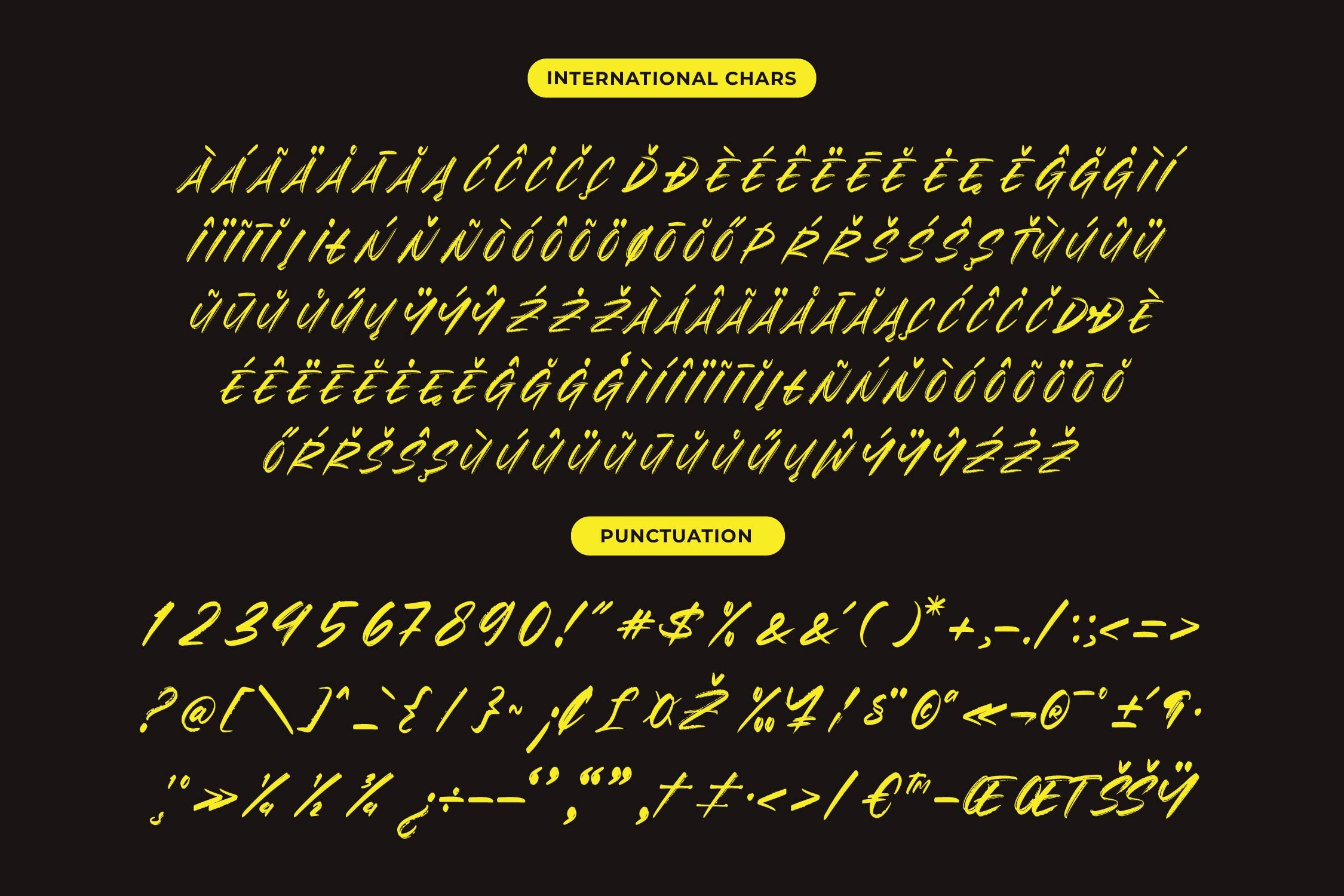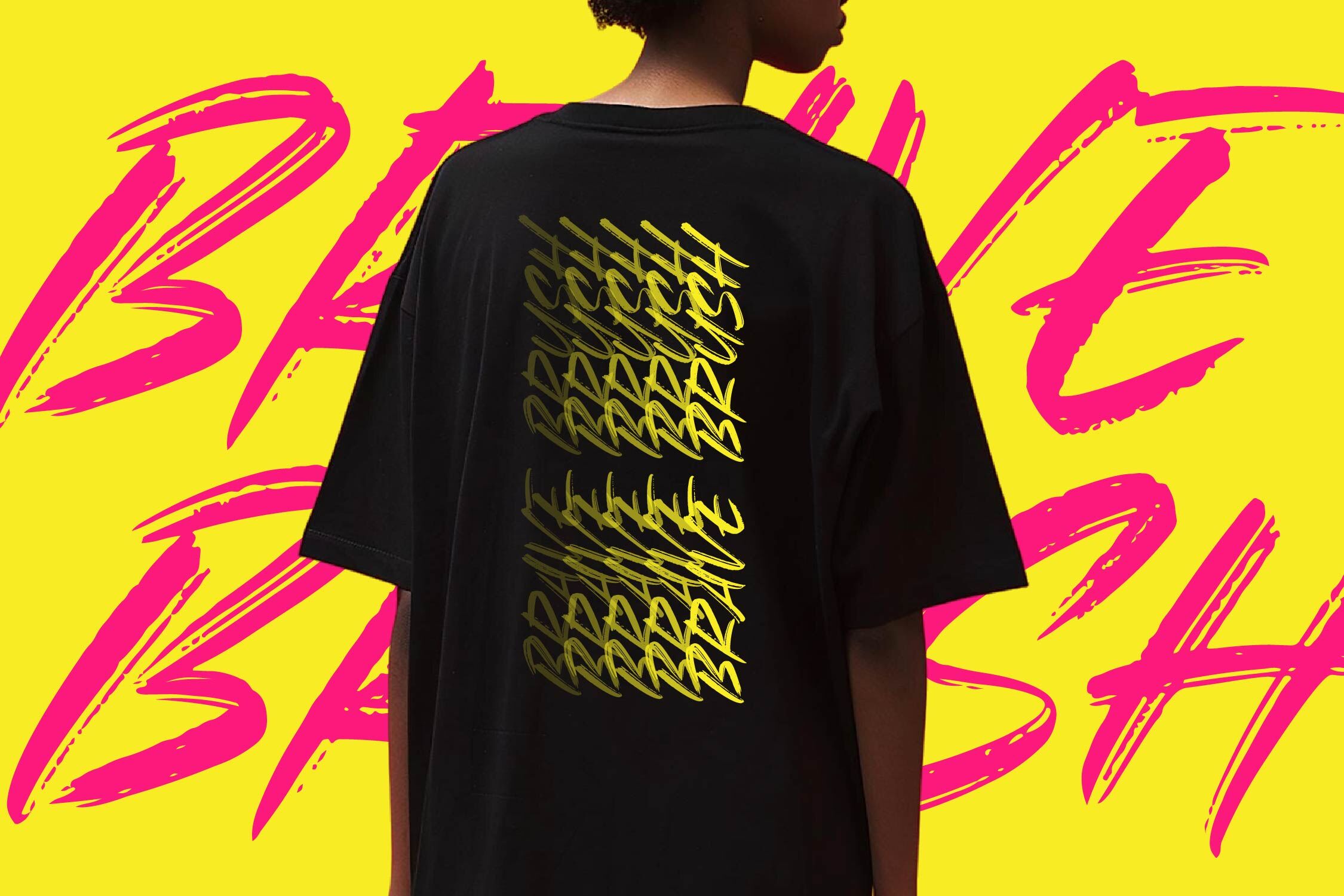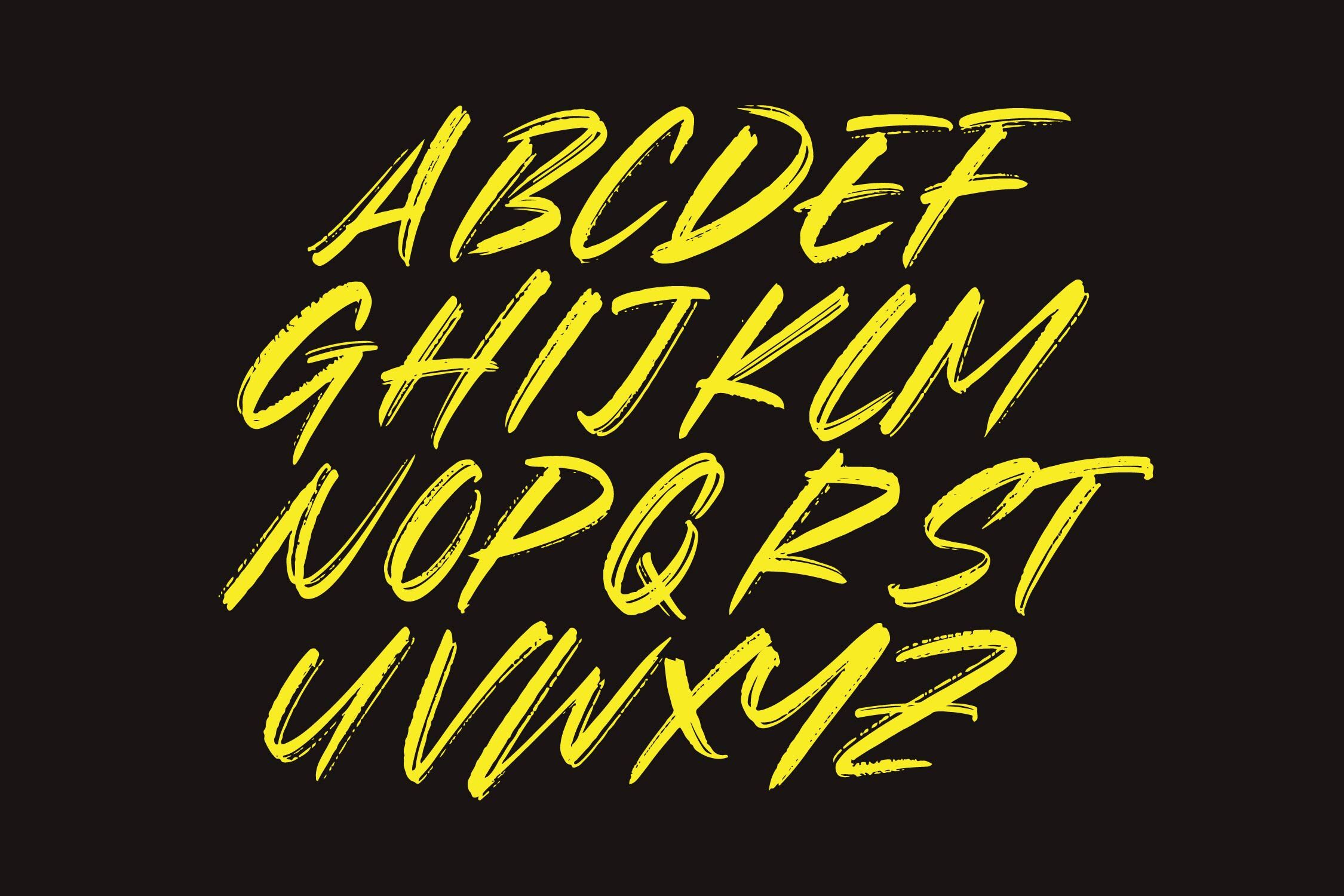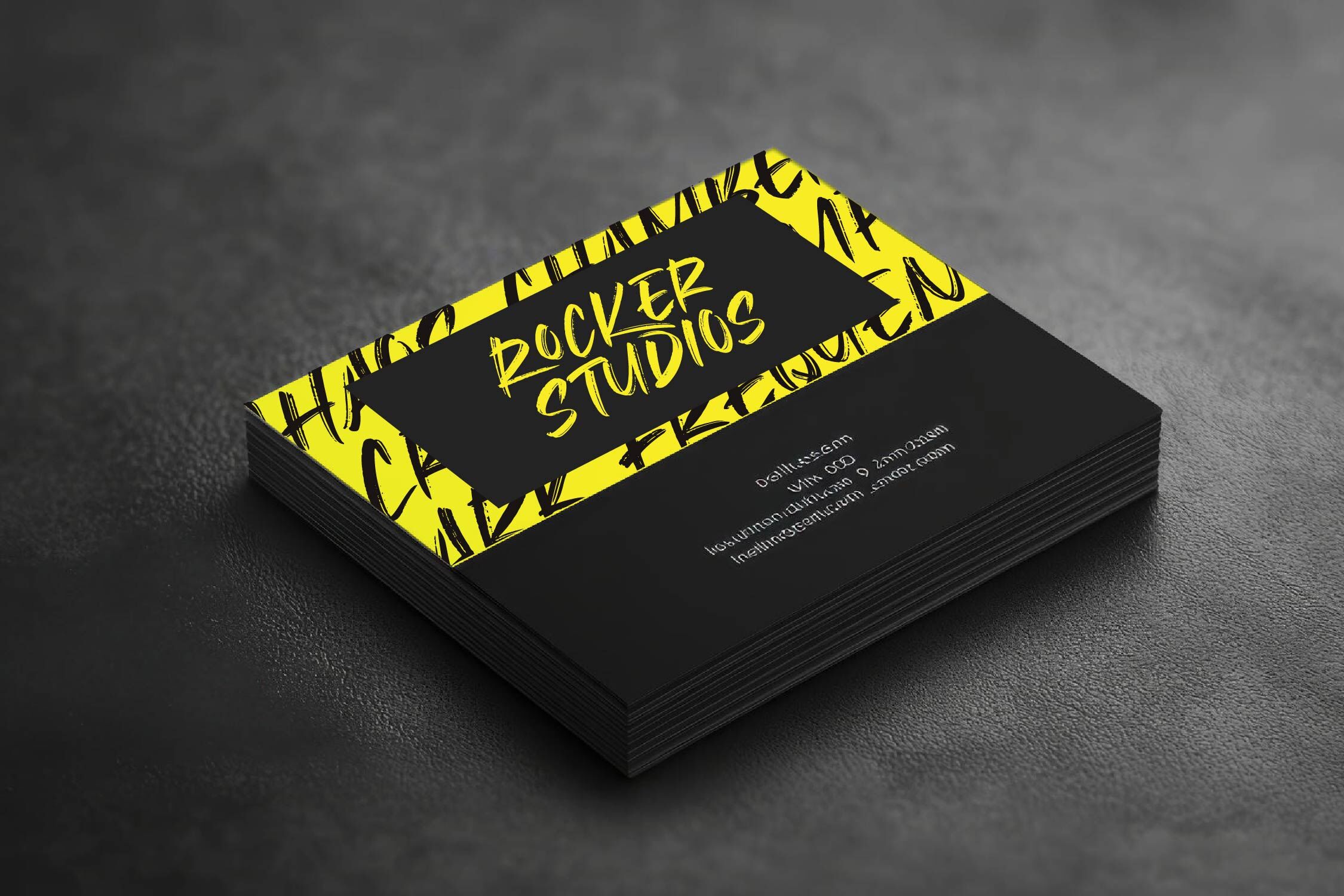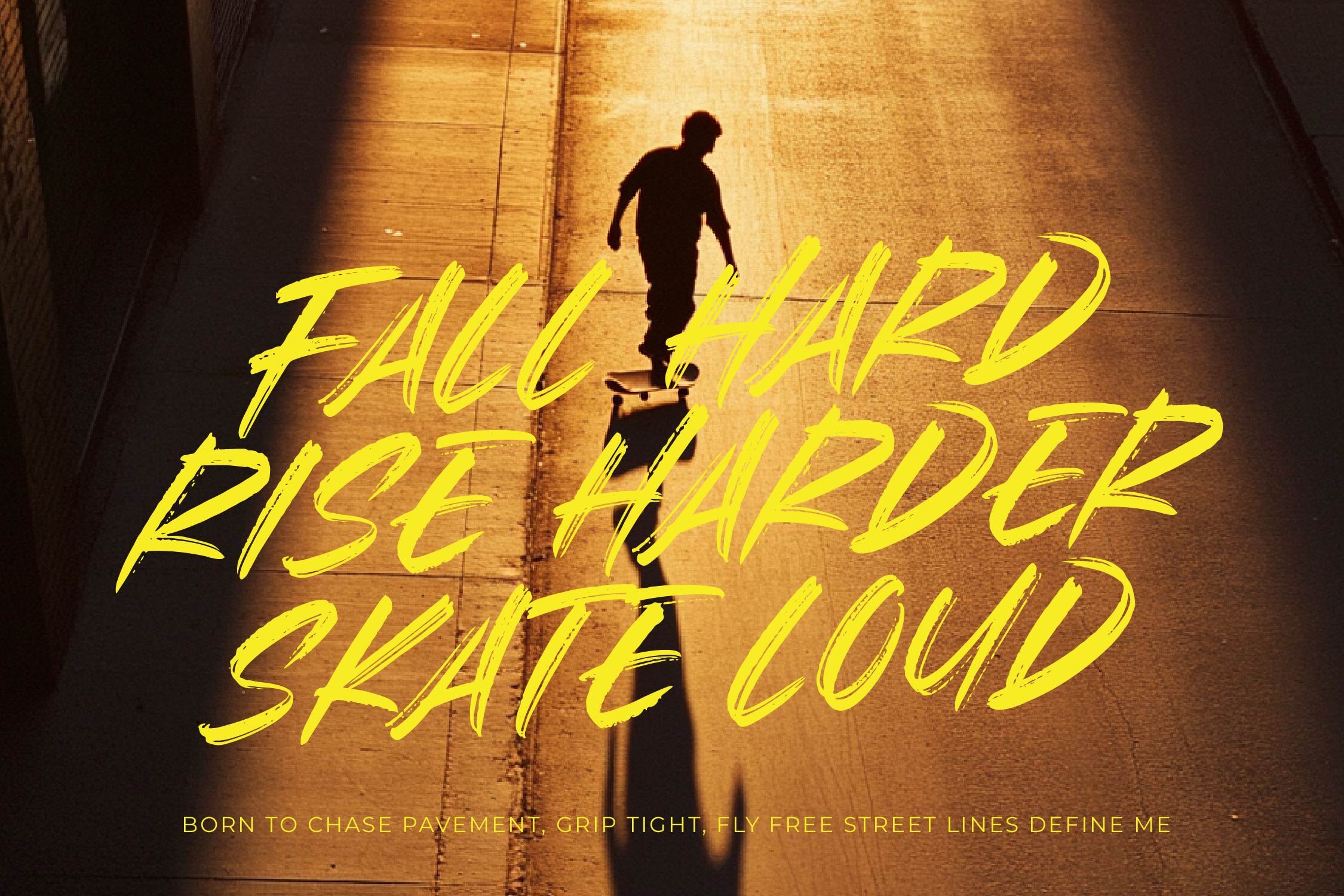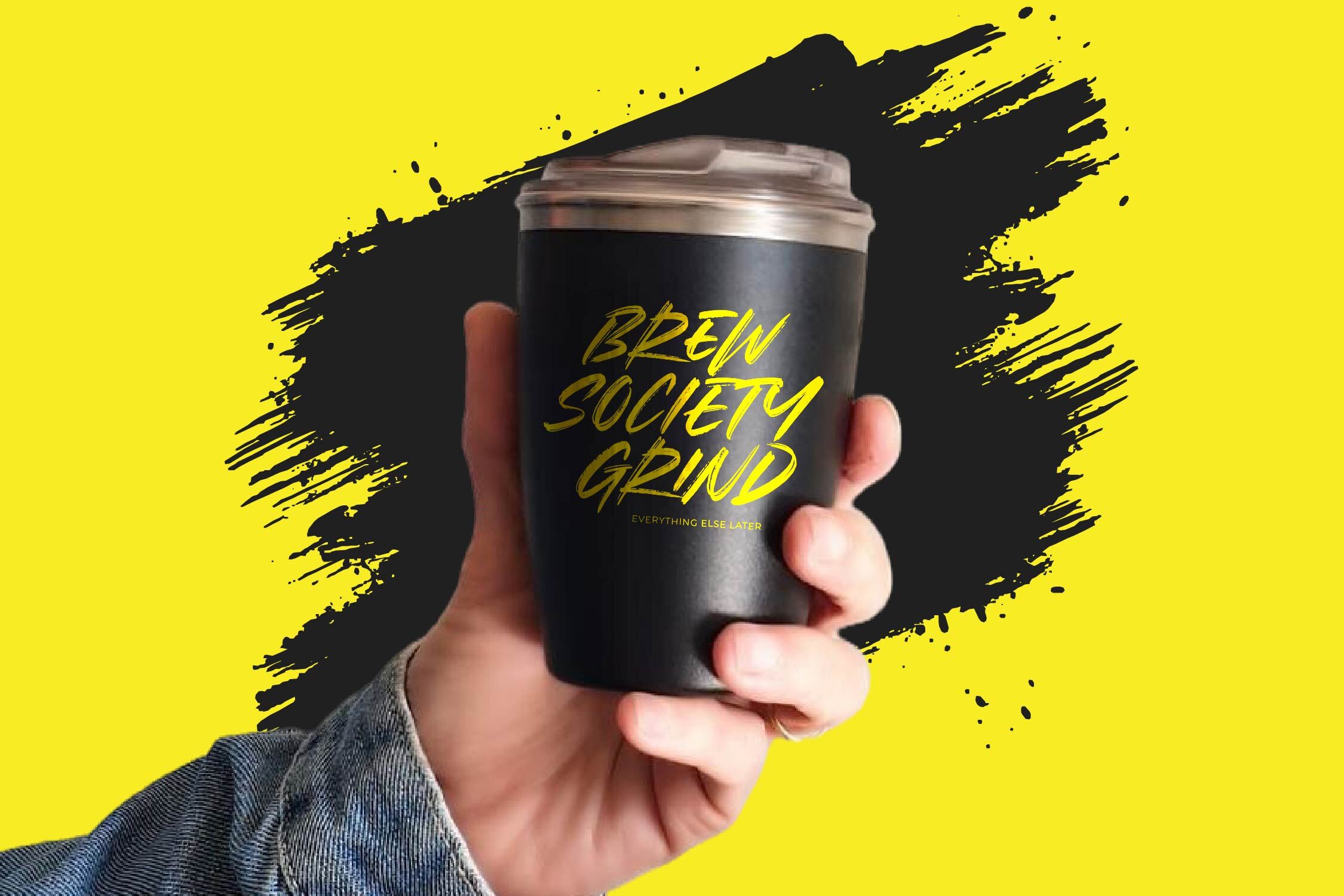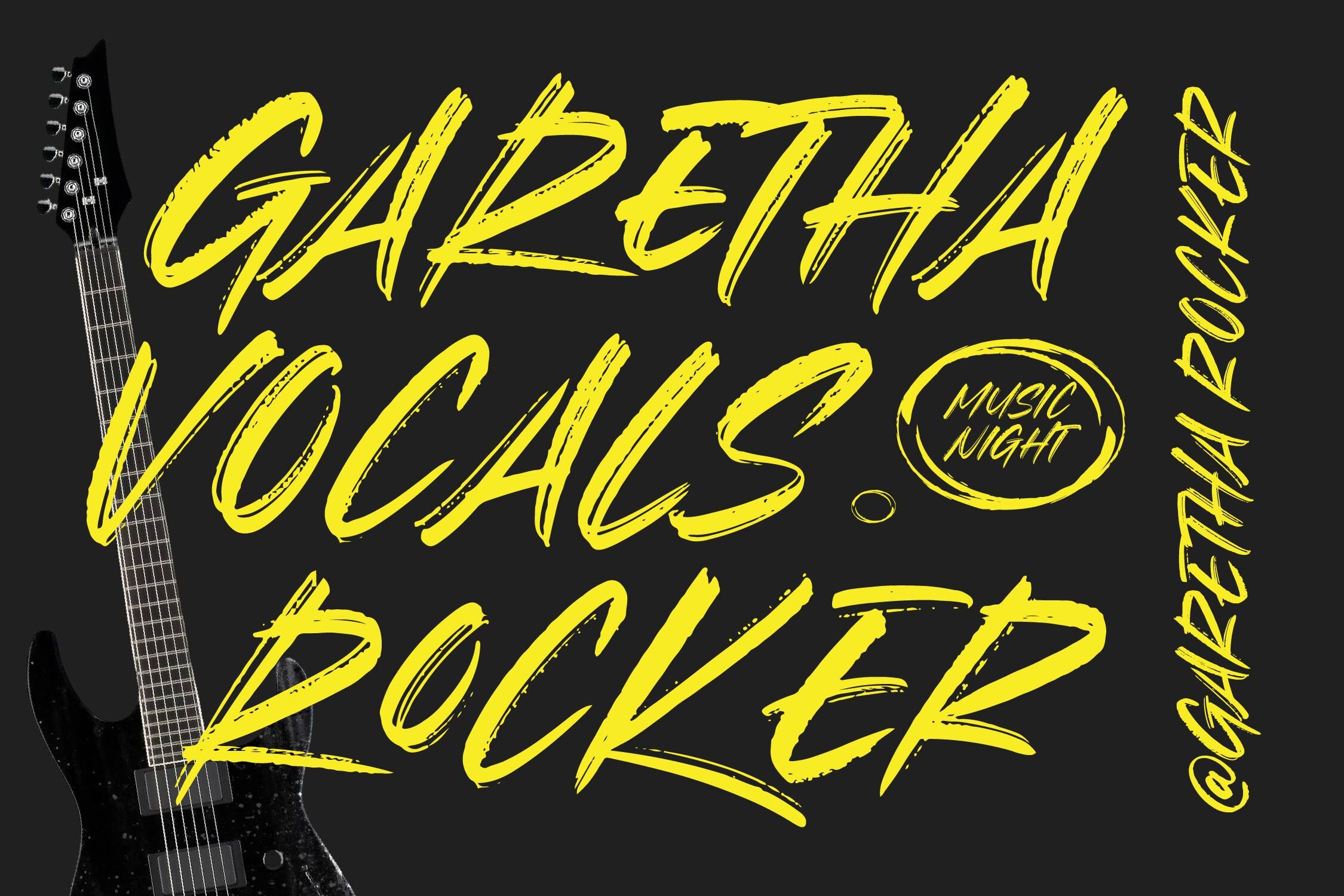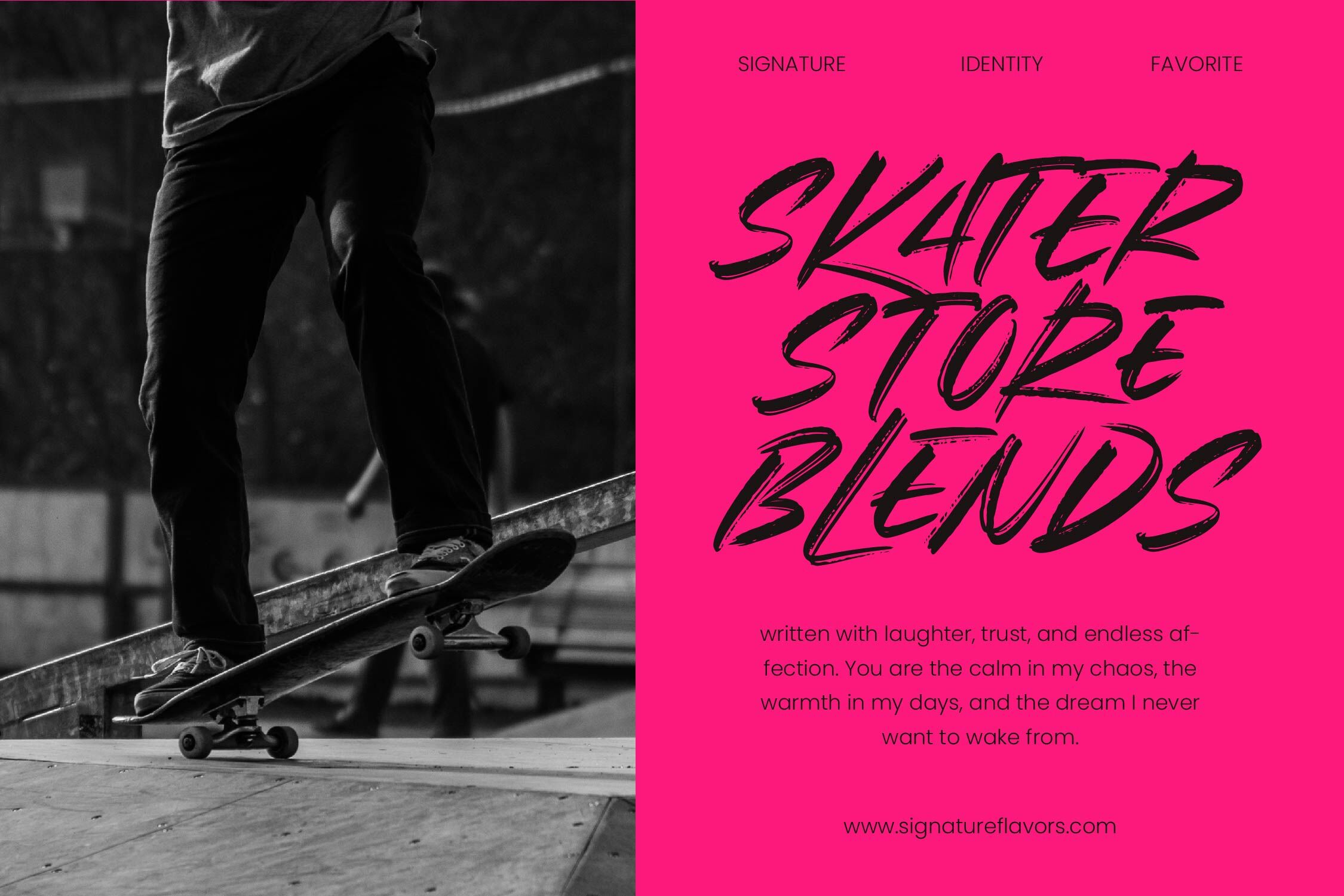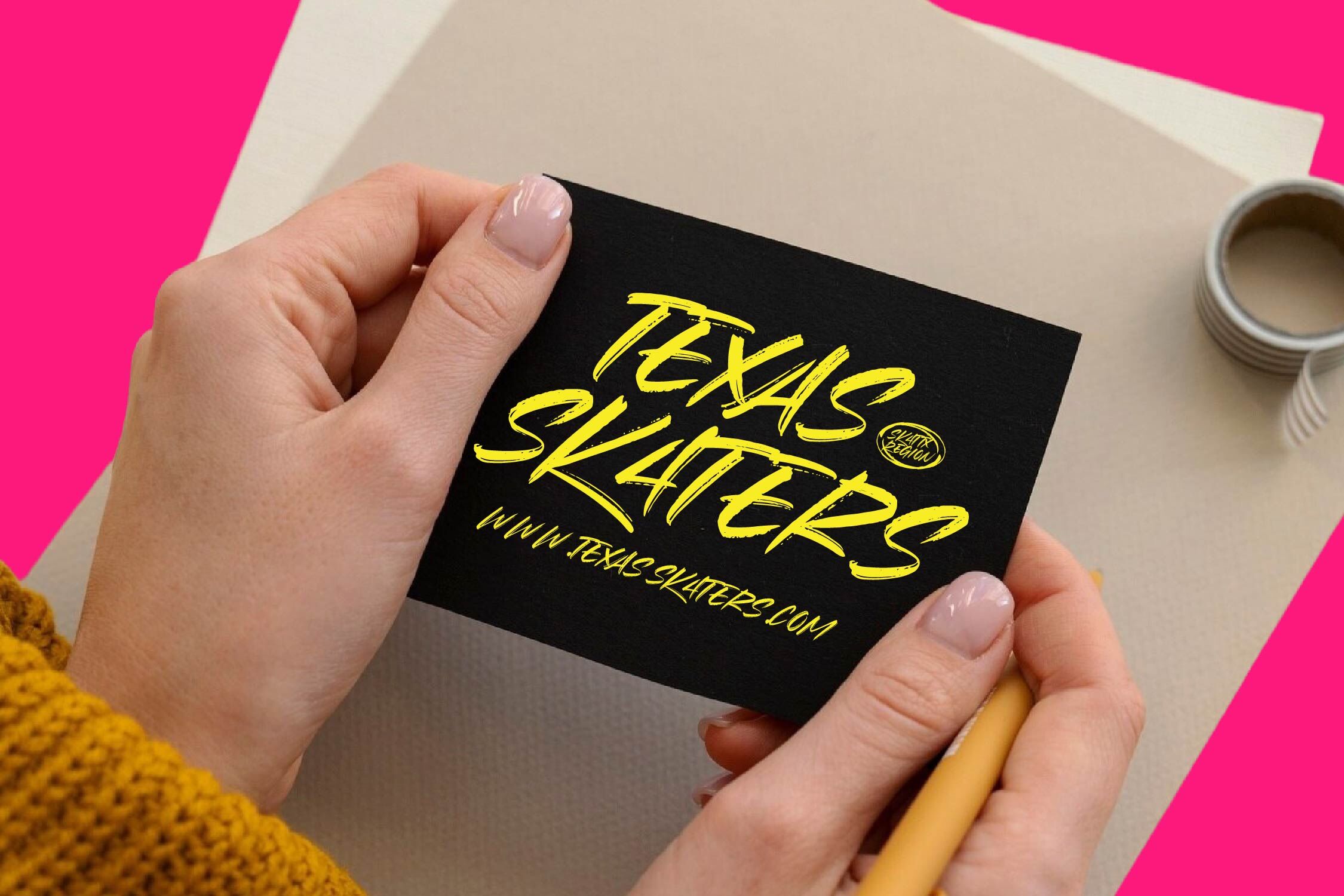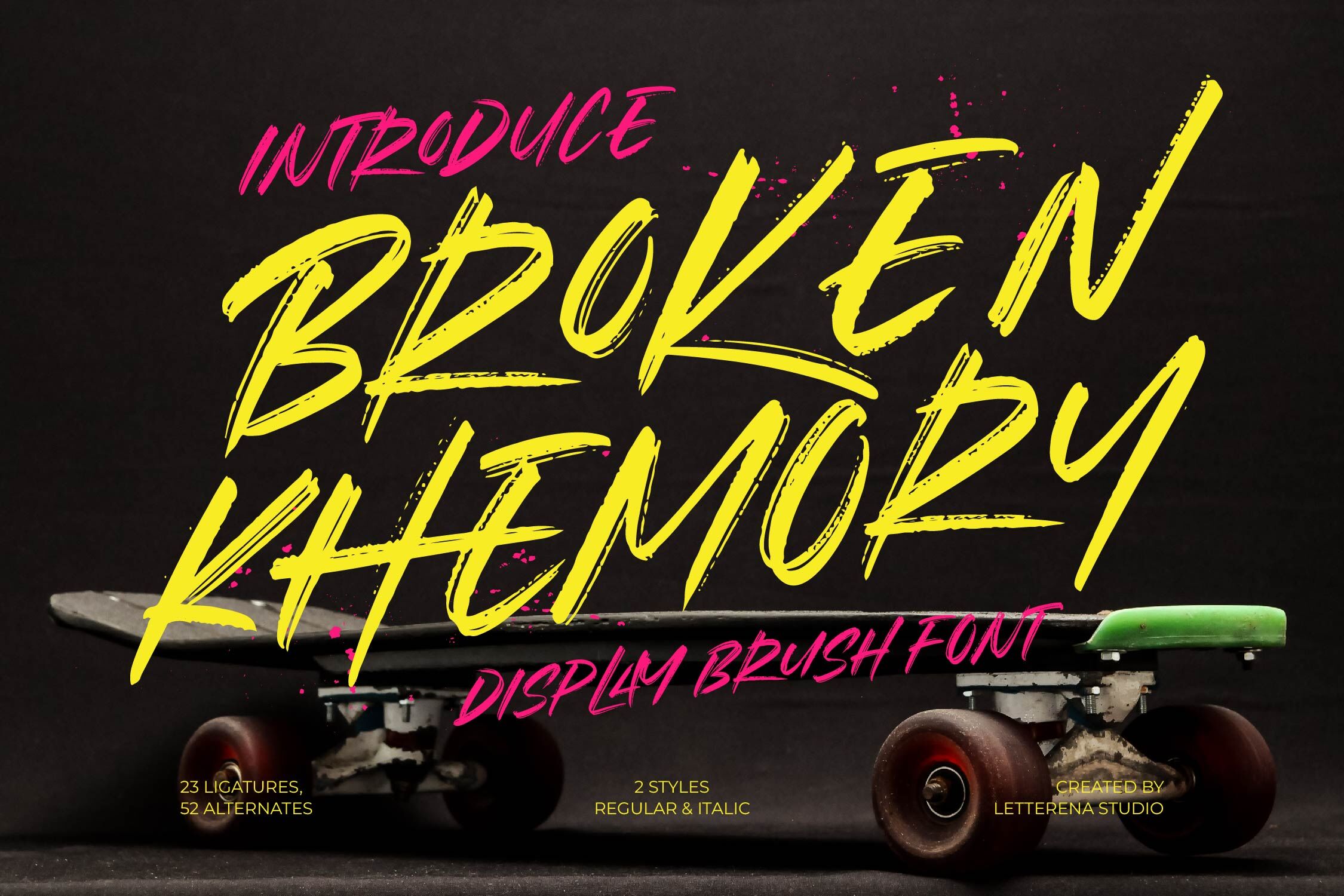
Broken Khemory - Display Brush Font
Broken Khemory - Display Brush Font , Broken Khemory is a bold display brush font built for energy-driven designs. With rough streaks, rebellious texture, and fast-paced strokes, this typeface brings raw attitude to street-style posters, album covers, sports branding, YouTube thumbnails, and urban merchandise. It includes 23 ligatures and 52 alternates, giving you flexibility to create aggressive brush lettering with natural flow. Available in Regular & Italic, this font pushes loud, expressive, and unapologetic visuals